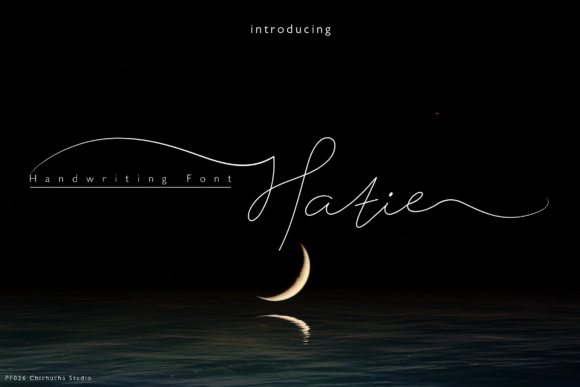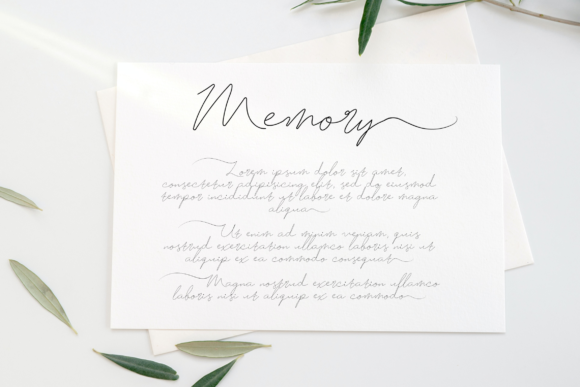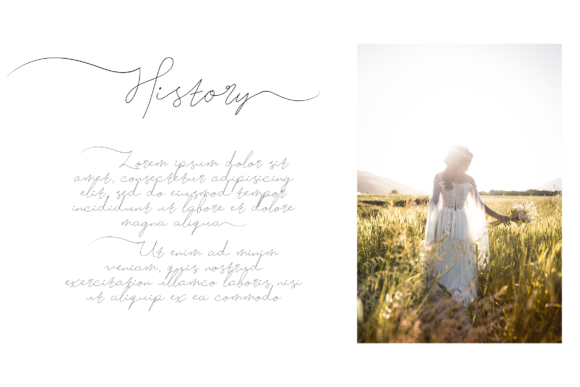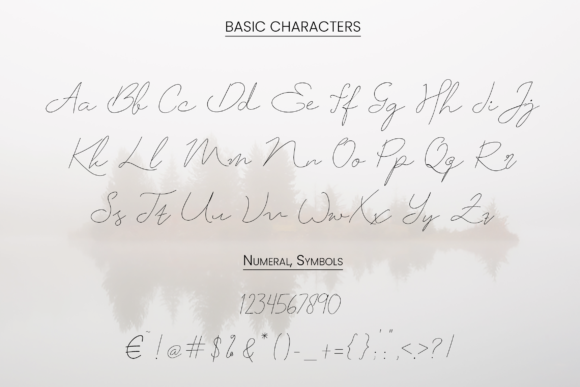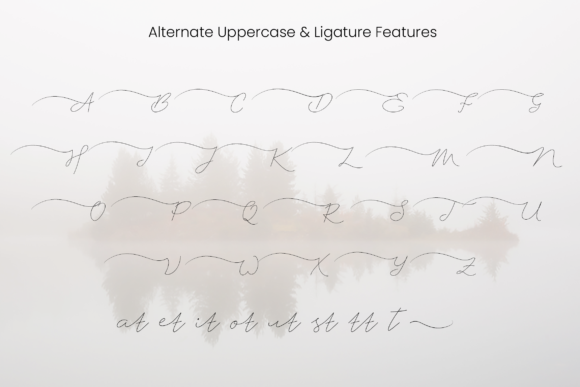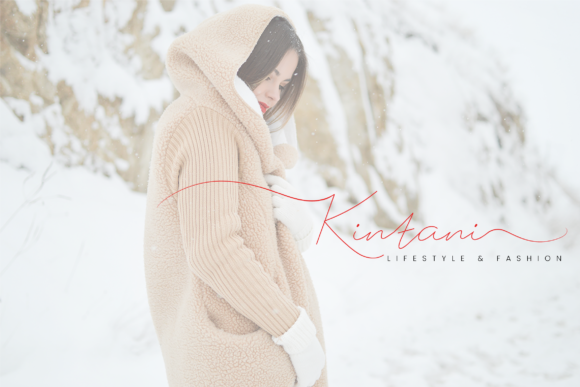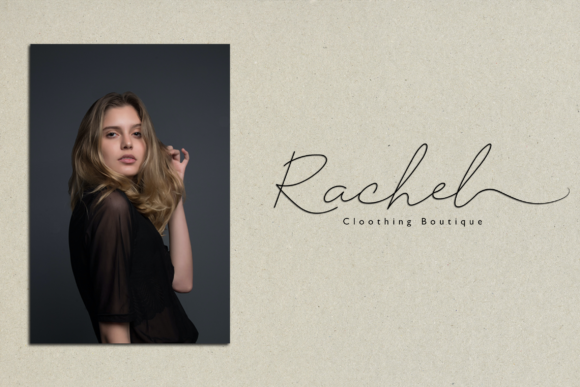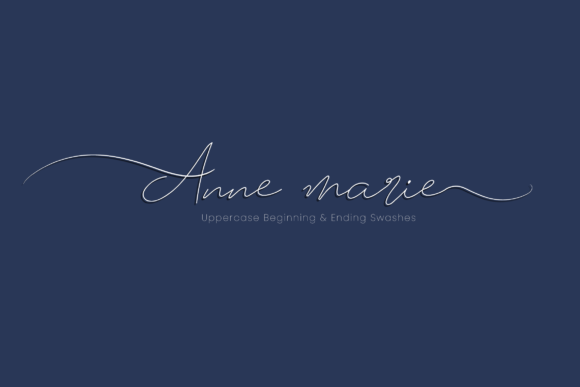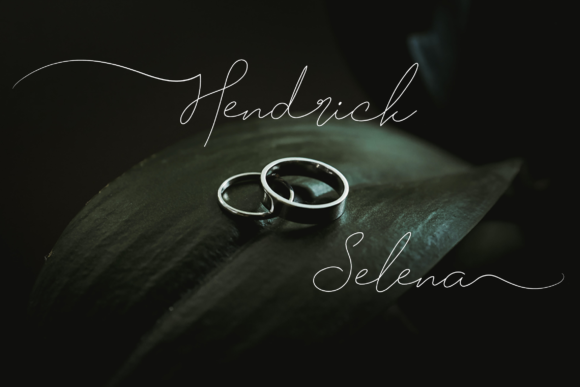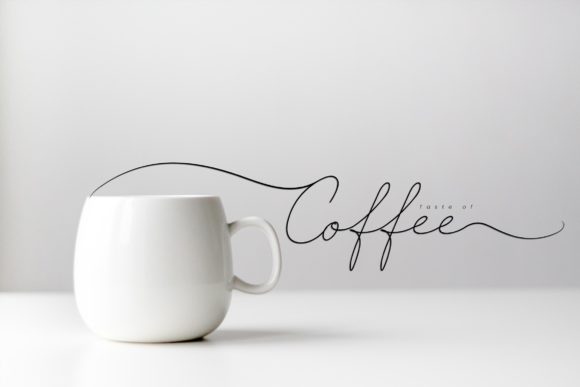
Hatie Font
About Hatie Font
Hatie is a slim and gorgeous and delicate looking script font. It will add a luxury spark to any design project that you wish to create! This font is PUA encoded which means you can access all of the amazing glyphs and ligatures with ease!